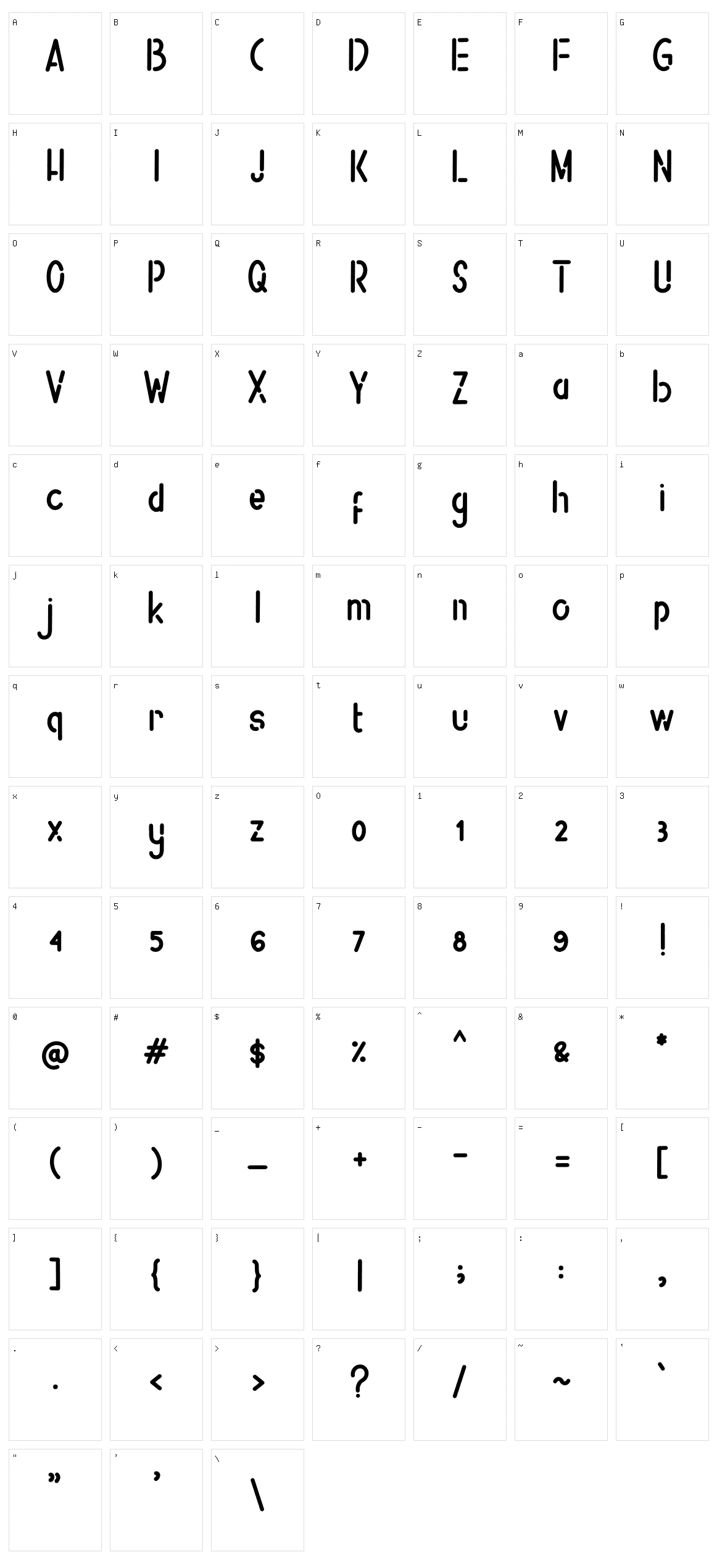
The free font Helomate is carefully designed by Creatype Studio, showcasing a thoughtful balance of creativity and usability and falls under the Stencil font style. When you download the ZIP file, it contains only 96.43 KB of font files, making it lightweight and quick to download. Please review the license details below to understand permitted usage and distribution rights. If license information is not available, we recommend using this font for personal projects only or contacting the author directly for commercial usage permissions.